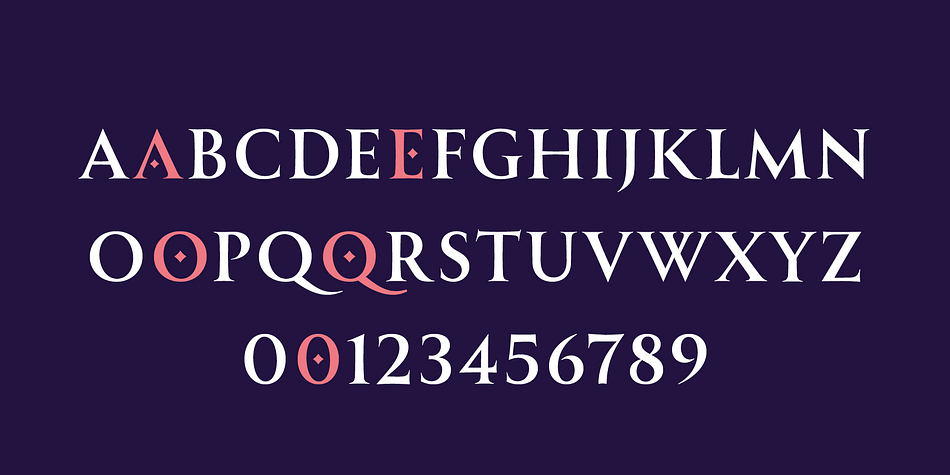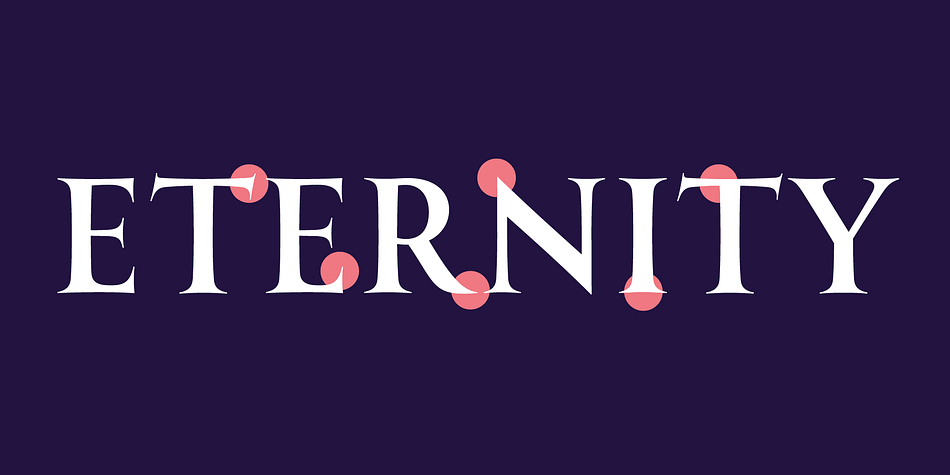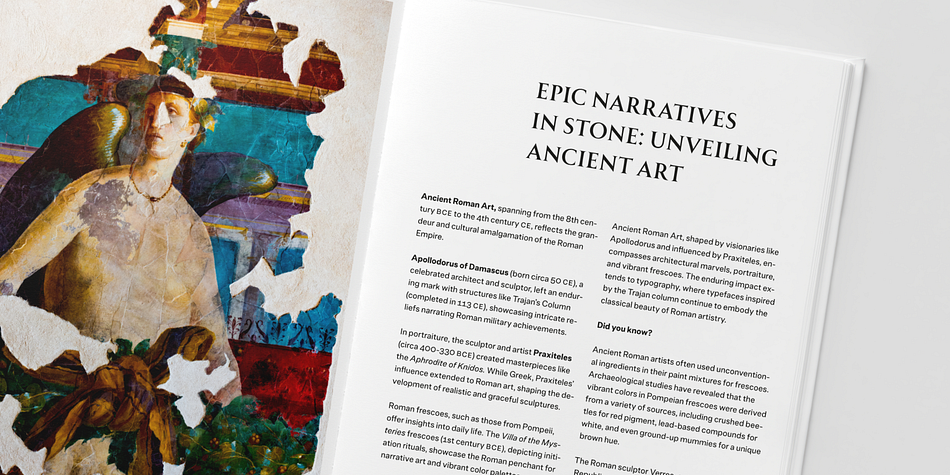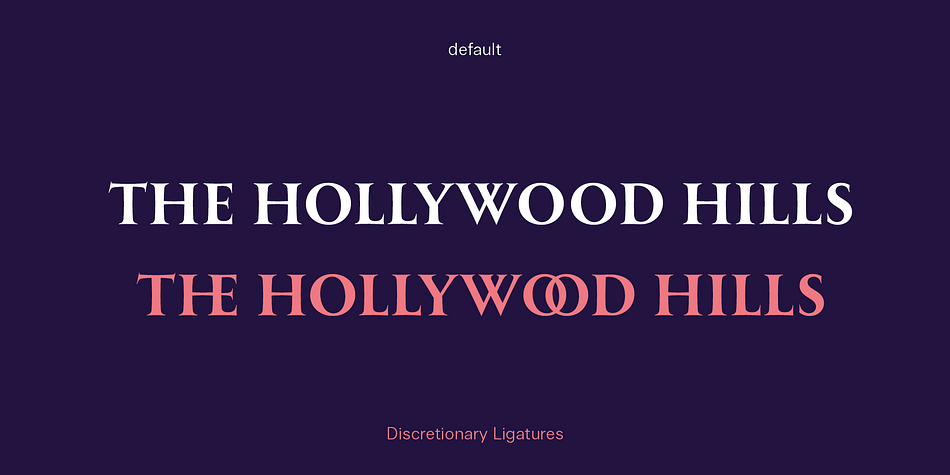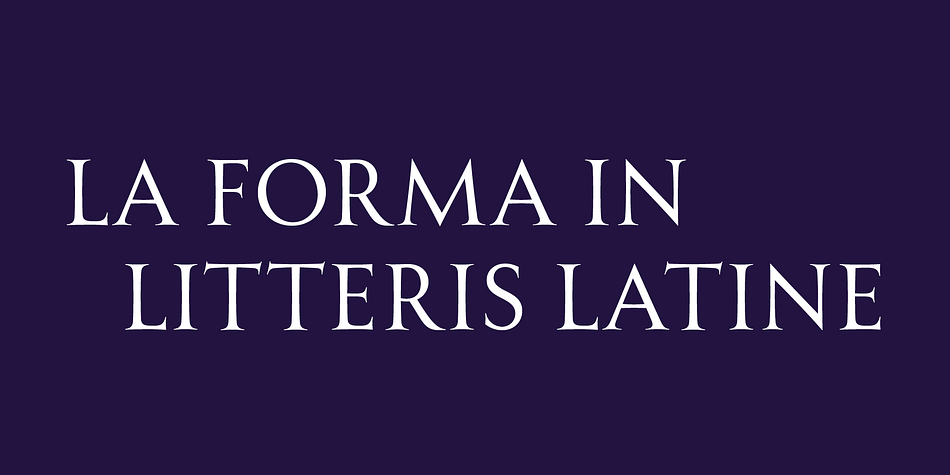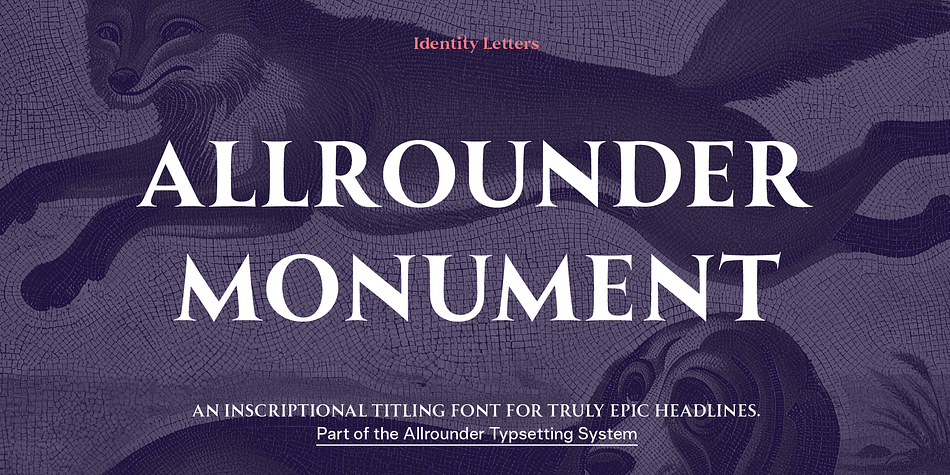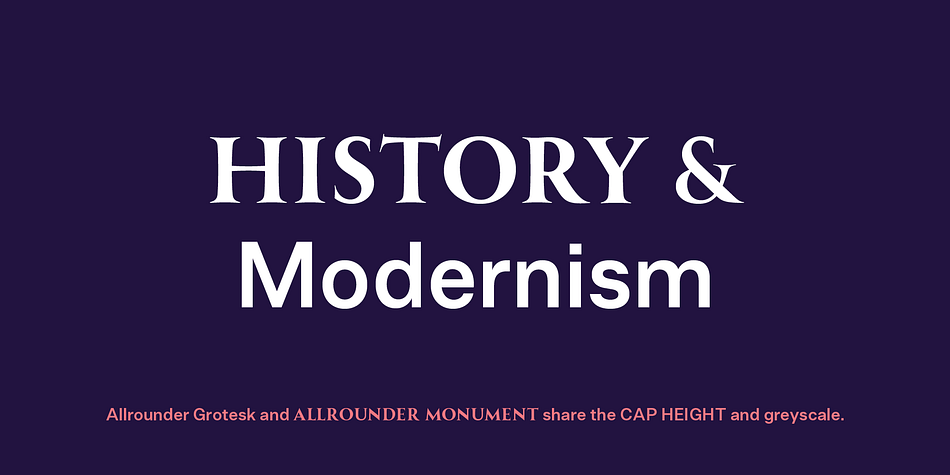
Designed by Moritz Kleinsorge, Allrounder Monument is a serif font family. This typeface has three styles and was published by Moritz Kleinsorge.
Allrounder Monument is an inscriptional, dignified member of the Allrounder superfamily.
This all-caps typeface with delicate serifs was inspired by ancient inscriptions on columns, monuments, and buildings in Rome: letters as old as two millennia that radiate their own classic charm. Allrounder Monument picks up this atmosphere in order to create a typographic tool that lives up to contemporary demands. It infuses today’s designs with a hint of history and an air of exclusivity.
Allrounder Monument is a timeless titling typeface. You might use it for posters, magazines, book covers, greeting cards, advertising or packaging work, and even signage. If you want an even more spectacular and exciting headline or title, additional Discretionary Ligatures and a Stylistic Set provide the necessary OpenType power to achieve this goal with ease.
As Allrounder Monument is a part of the Allrounder superfamily, you can combine the three weights Book, Regular and Medium with the corresponding weights of Allrounder Grotesk. The Allrounder superfamily is a series of typefaces sharing the same color and horizontal metrics (cap height, small cap height and x-height): a typesetting system whose components match each other perfectly. Any other part of this design kit, e. g., Allrounder Grotesk or Allrounder Antiqua, may be easily combined with Allrounder Monument.
Whenever you need a truly epic headline, Allrounder Monument is the best horse in your barn. Ad astra!